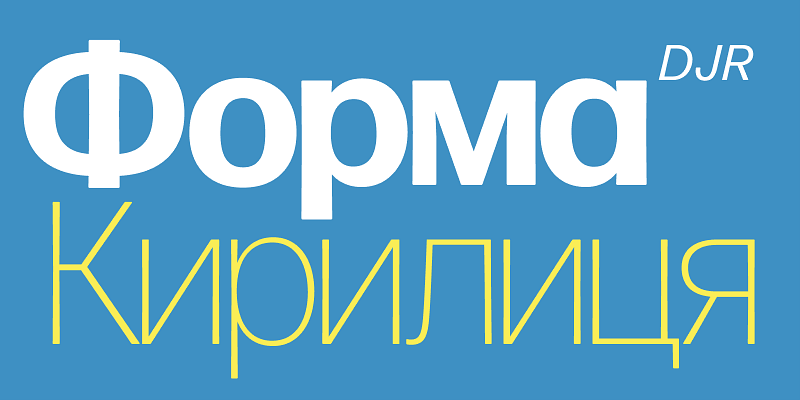
Forma DJR Cyrillic Font Free Download is a sleek, modern typeface that supports the Cyrillic script while maintaining the minimalist elegance of the original Forma DJR family. Designed with precision and a strong geometric foundation, this font is perfect for international branding, editorial design, and user interfaces that demand clean, readable typography across languages.
Its balanced proportions and subtle details make it highly legible, even at smaller sizes. Whether you’re designing bilingual layouts, product packaging, or professional presentations, Forma DJR Cyrillic delivers a unified aesthetic that feels both modern and timeless. It’s particularly well-suited for tech, fashion, architecture, and cultural publications looking to elevate their visual presence.
The Cyrillic characters are thoughtfully crafted to align seamlessly with the Latin set, ensuring your typography remains consistent and harmonious throughout your design. This attention to detail makes Forma DJR Cyrillic a reliable choice for designers working on multilingual content or expanding into Eastern European and Central Asian markets.
Forma DJR Cyrillic is more than just a font—it’s a versatile tool for global communication, offering clarity, elegance, and style in every language it supports.